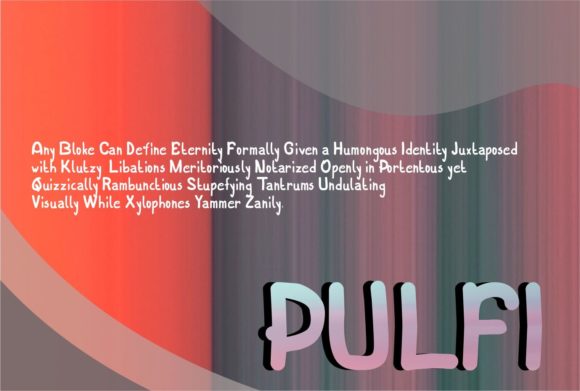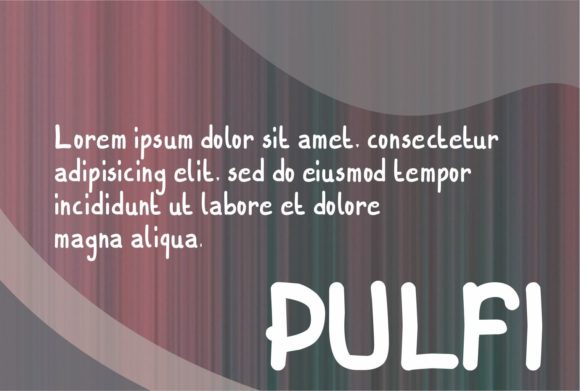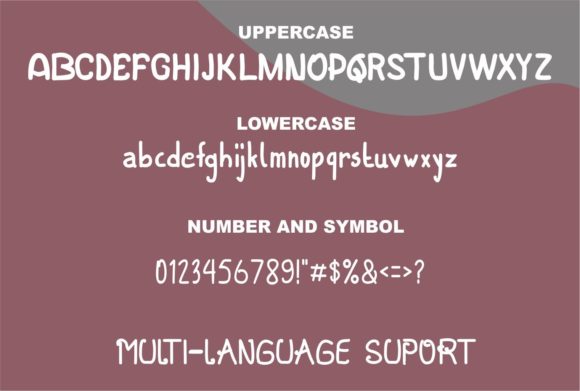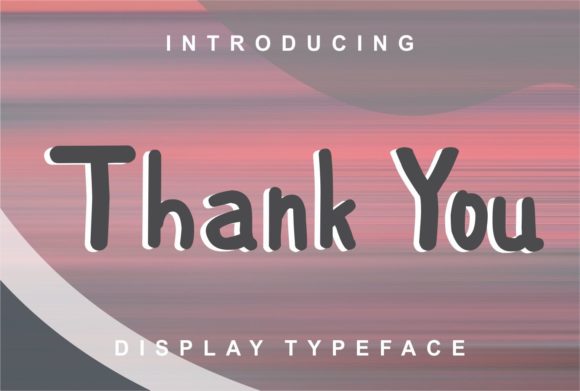
Introduction to Pulfi Font
As designers, we’ve all been there – staring at a blank canvas, trying to come up with the perfect visual concept for our next creative project. The ideas swirl, the inspiration is there, but the perfect font to bring it all together just seems elusive. That’s where the Pulfi Font comes in – a clean and adaptable display font that’s sure to elevate your designs and make your work shine.
With its stunning aesthetic and versatility, the Pulfi Font is a valuable resource for any designer looking to add a touch of sophistication to their work. Whether you’re working on a poster, flyer, or print project, this font is sure to impress. And the best part? It’s free to download, making it an accessible design resource for creatives of all levels.
Pulfi Font
- High-quality, professional font suitable for creative projects
- Includes a wide range of characters, including uppercase and lowercase letters, numbers, and punctuation
- Designed with a clean and modern aesthetic, ideal for use in logos, branding, and packaging design
Honest Review: Pulfi Font
As a designer, I’m always on the lookout for high-quality design resources to enhance my creative projects. Recently, I stumbled upon the Pulfi Font, and I’m excited to share my thoughts on this free download.
Here’s what works well: ✨ The Pulfi Font is incredibly versatile, making it perfect for a wide range of design projects, from logos to typography-heavy pieces. Its modern and sleek aesthetic is a great addition to any design portfolio. I also appreciate the transparent background, which makes it easy to combine with other design elements.
Some limitations I’ve noticed: ⚠️ The font is a bit limited in terms of character set, which may not be ideal for more complex design projects. Additionally, the font files could be optimized for better performance, especially for designers working on large-scale projects.
Overall, I’m impressed with the Pulfi Font. While it may not be perfect, its strengths far outweigh its weaknesses. As a free download, it’s an excellent resource for designers on a budget. I’d recommend the Pulfi Font to anyone looking for a high-quality, modern font for their creative projects.
Key features:
- Modern and sleek aesthetic
- Perfect for logos, typography-heavy pieces, and more
Pulfi Font
Tips for Getting the Most Out of Pulfi Font
To get the most out of Pulfi Font, use it with a transparent background to create a clean and modern look. You can also experiment with different font sizes and styles to add depth and visual interest to your design.
Pulfi Font is commonly used in creative projects such as logo design, graphic design, and digital marketing materials. It’s also a great resource for designers who want to create high-quality graphics and documents with a professional look and feel.